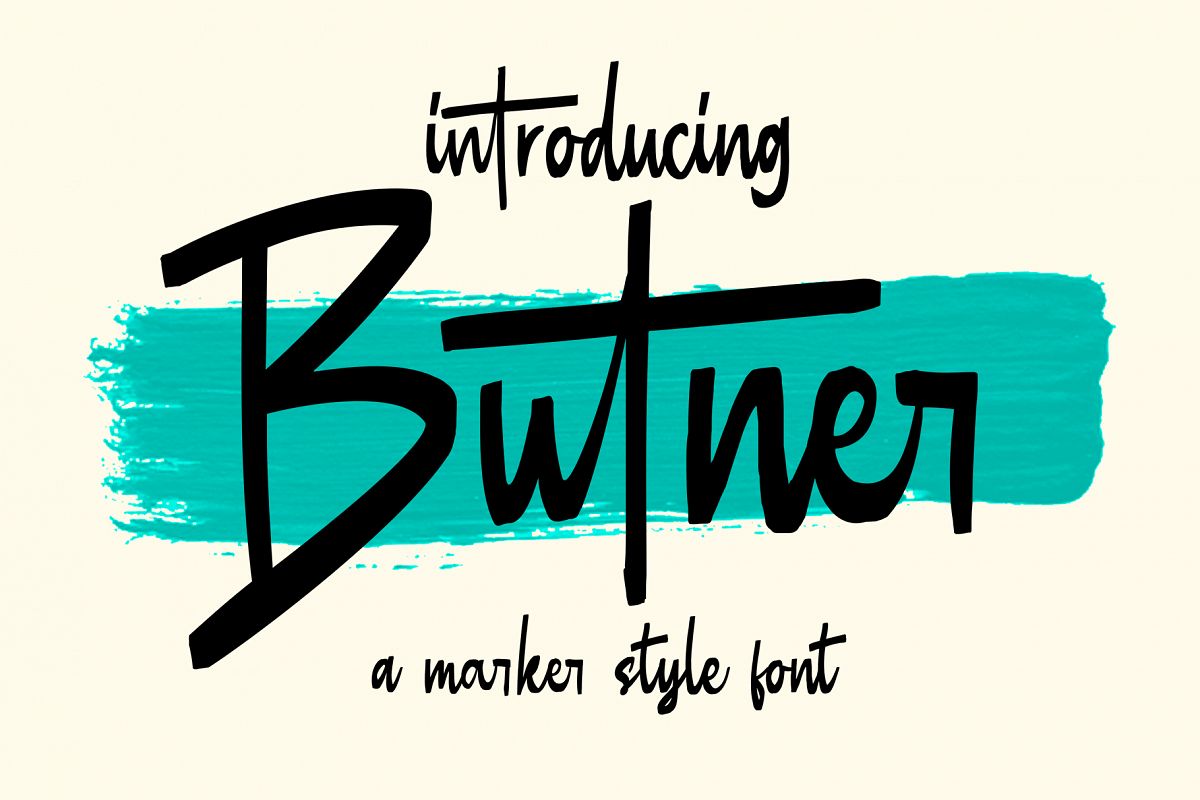
Butner - Marker Font
Butner
Introducing Butner marker font which has a hand lettering marker style. So it looks natural like a handmade. This font is best used for your design project that has the concept of fun, girly, romantic and elegant. Can also be applied to the design of a logotype, header website, wedding logo, romantic design, makes some lettering a quote, T-shirt design etc.